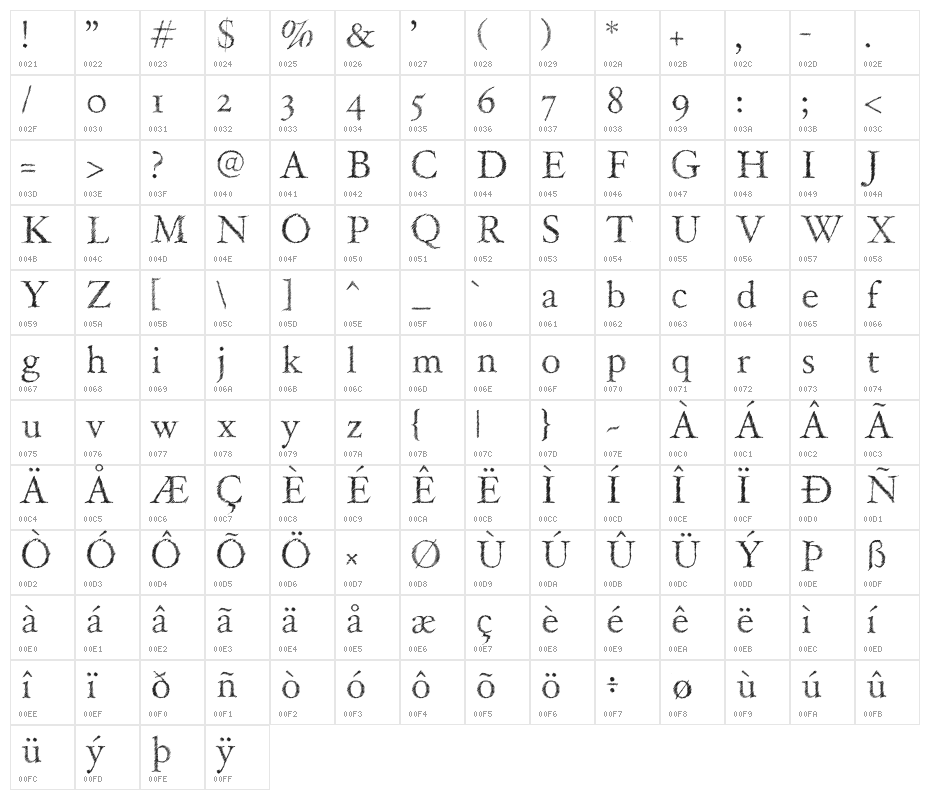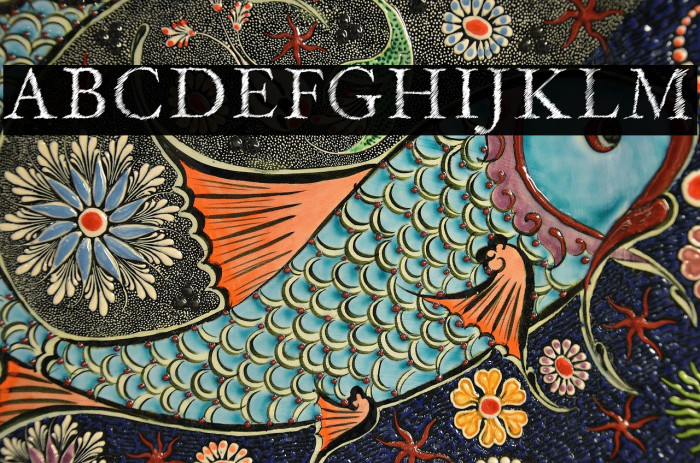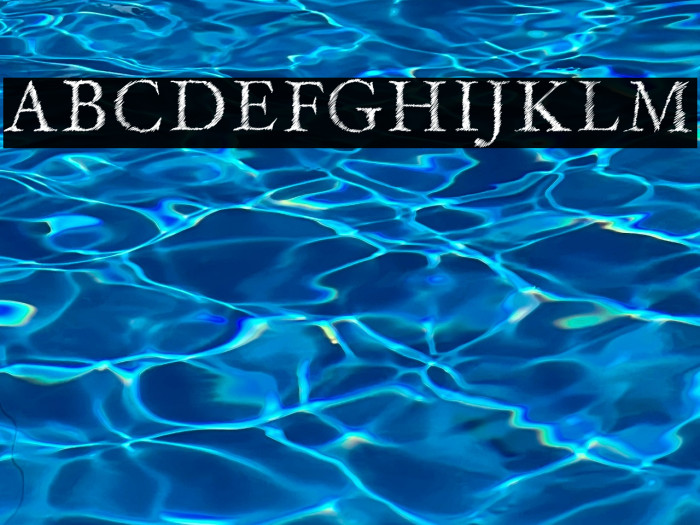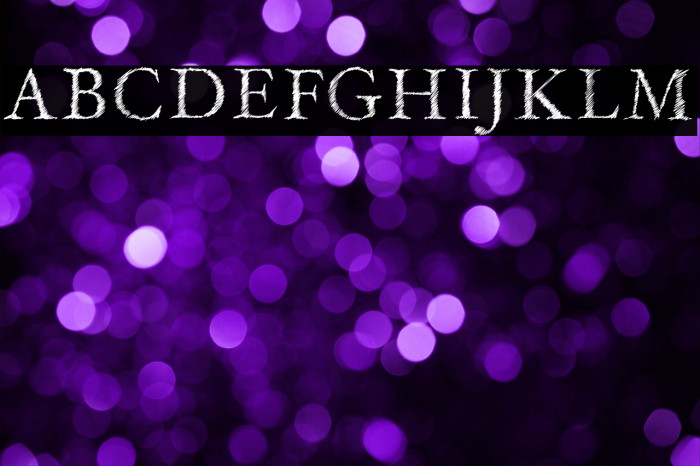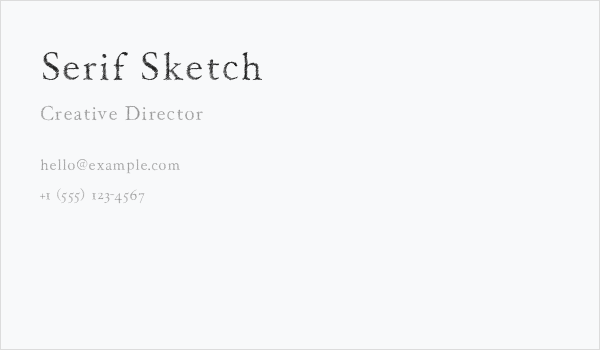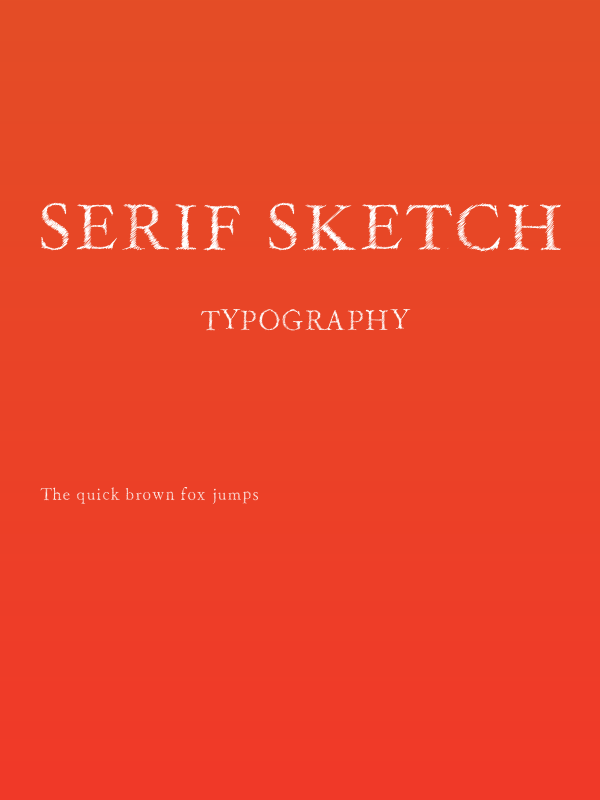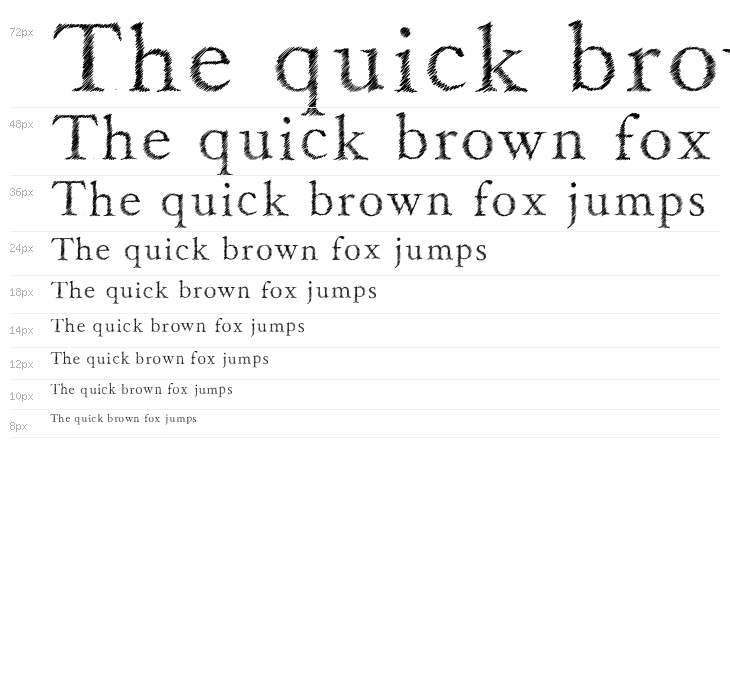
Serif Sketch Font
Serif Sketch Description
This font features a unique sketch-like texture that gives it a hand-drawn appearance. Each character is adorned with rough, textured strokes that mimic the look of pencil sketches, creating a dynamic and artistic feel. The serif style adds a touch of classic elegance, while the irregular lines provide a modern twist. The uppercase and lowercase letters maintain a consistent style, with numerals and special characters following suit. This font stands out due to its distinctive artistic flair, making it suitable for creative and expressive projects.
| Overall Style | Artistic, Handcrafted |
| Use Case | Headlines, Logos, Artistic projects |
| Proposed Projects | Ideal for artistic projects, branding, posters, and invitations where a creative and handcrafted look is desired. |